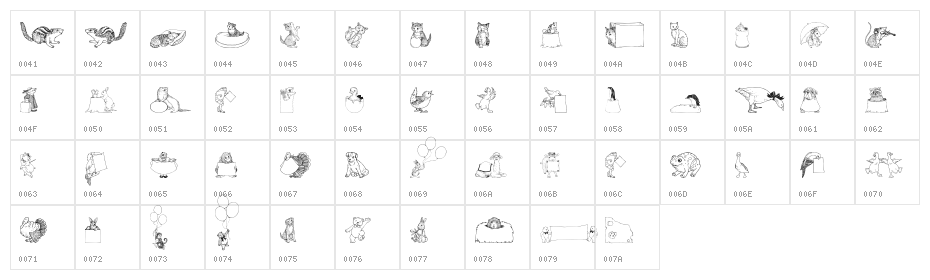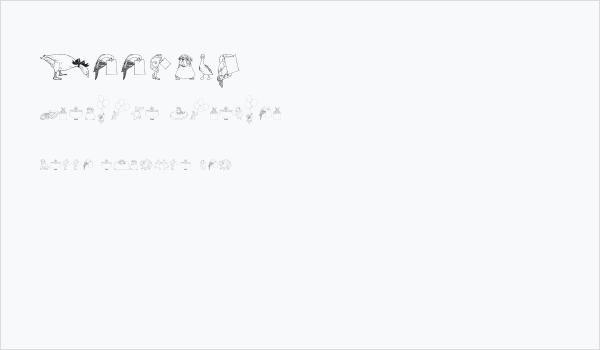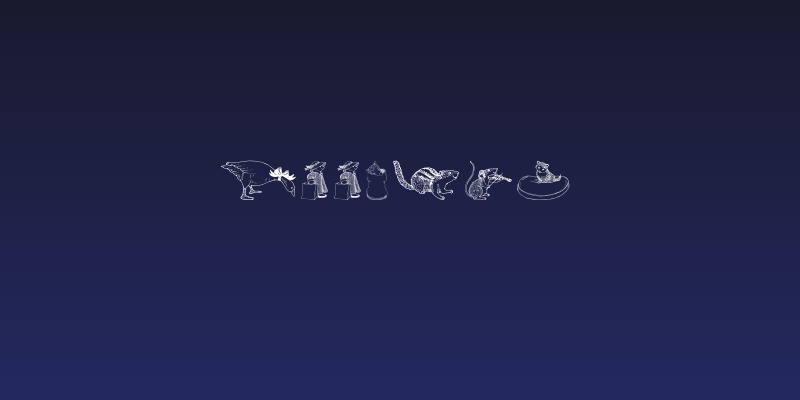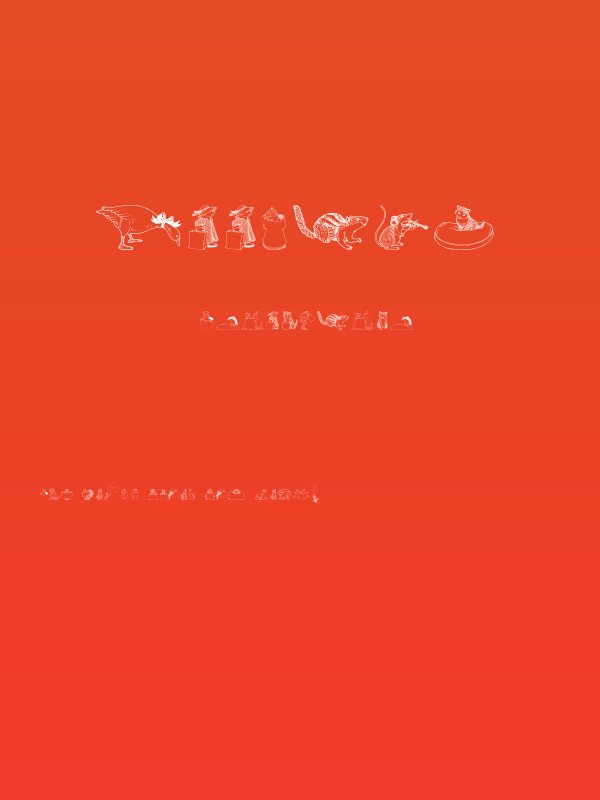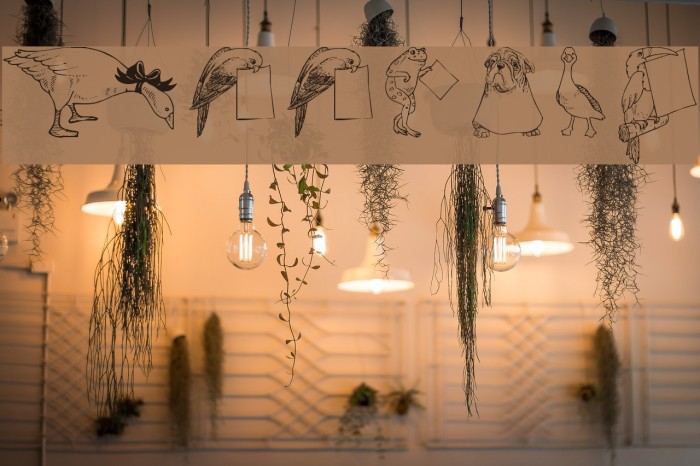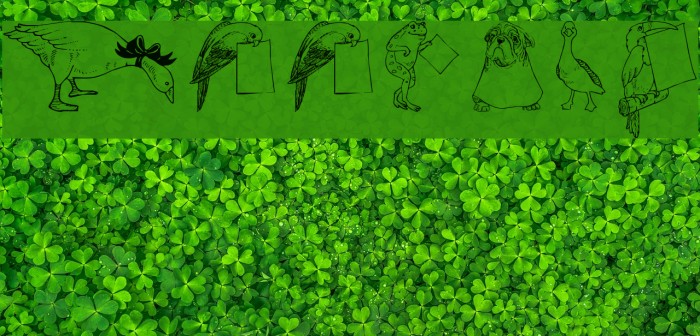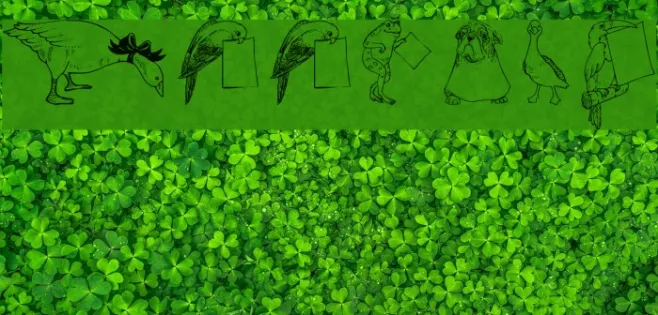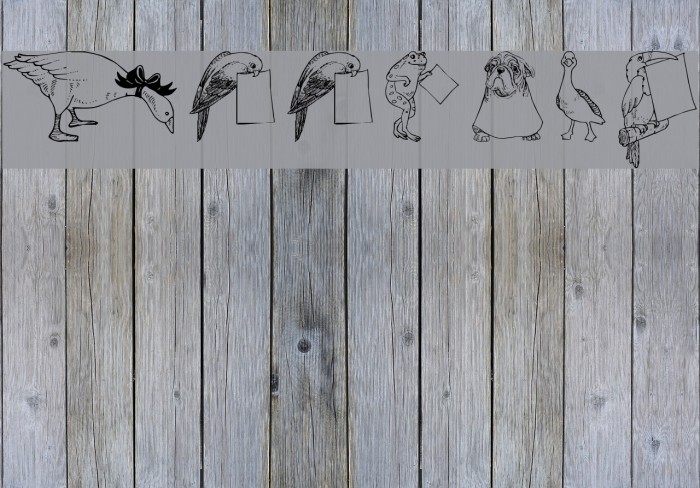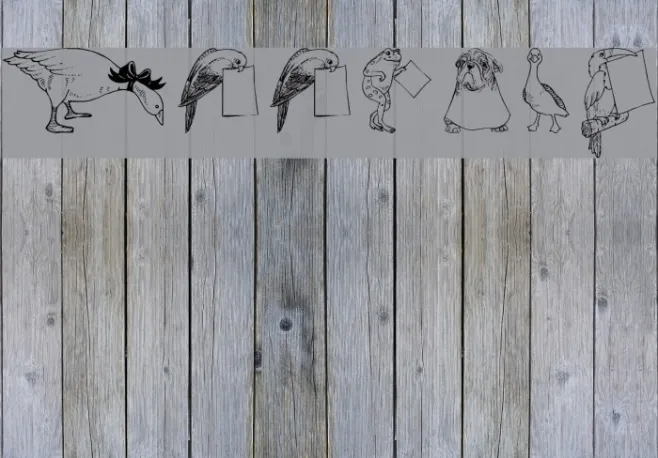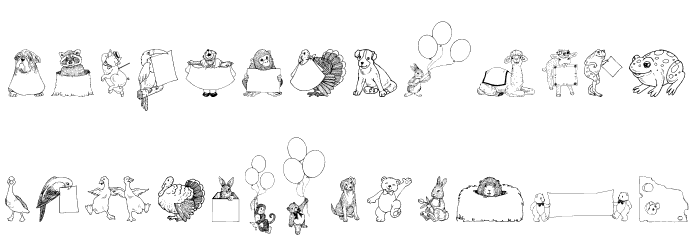
Zooland Font
Zooland Description
A whimsical, hand-drawn decorative font featuring a variety of animals in playful poses, some holding signs or balloons, with each character represented by a unique animal illustration. The style is sketch-like and detailed, evoking a storybook or children's illustration feel.
| Overall Style | Whimsical, Decorative, Playful |
| Use Case | Logos, Headlines, Posters, Children’s content |
| Proposed Projects | Children’s books, educational materials, party invitations, playful branding, greeting cards. |